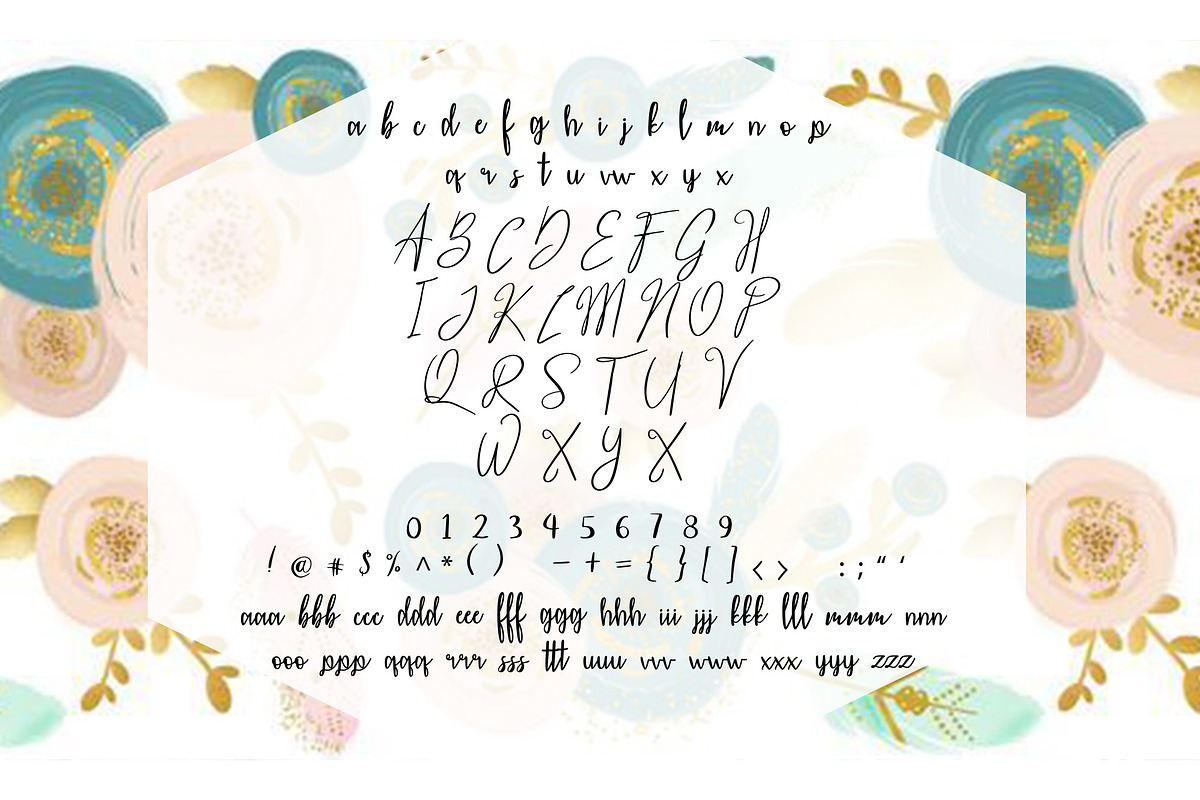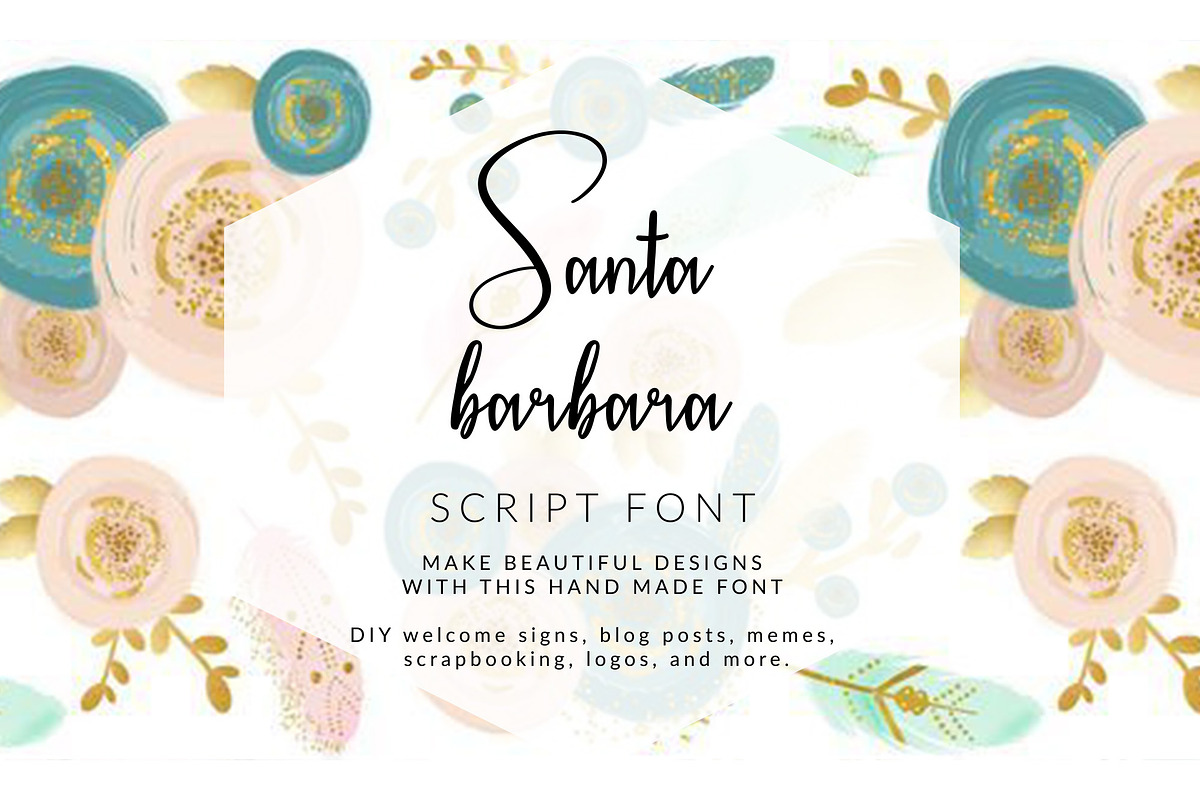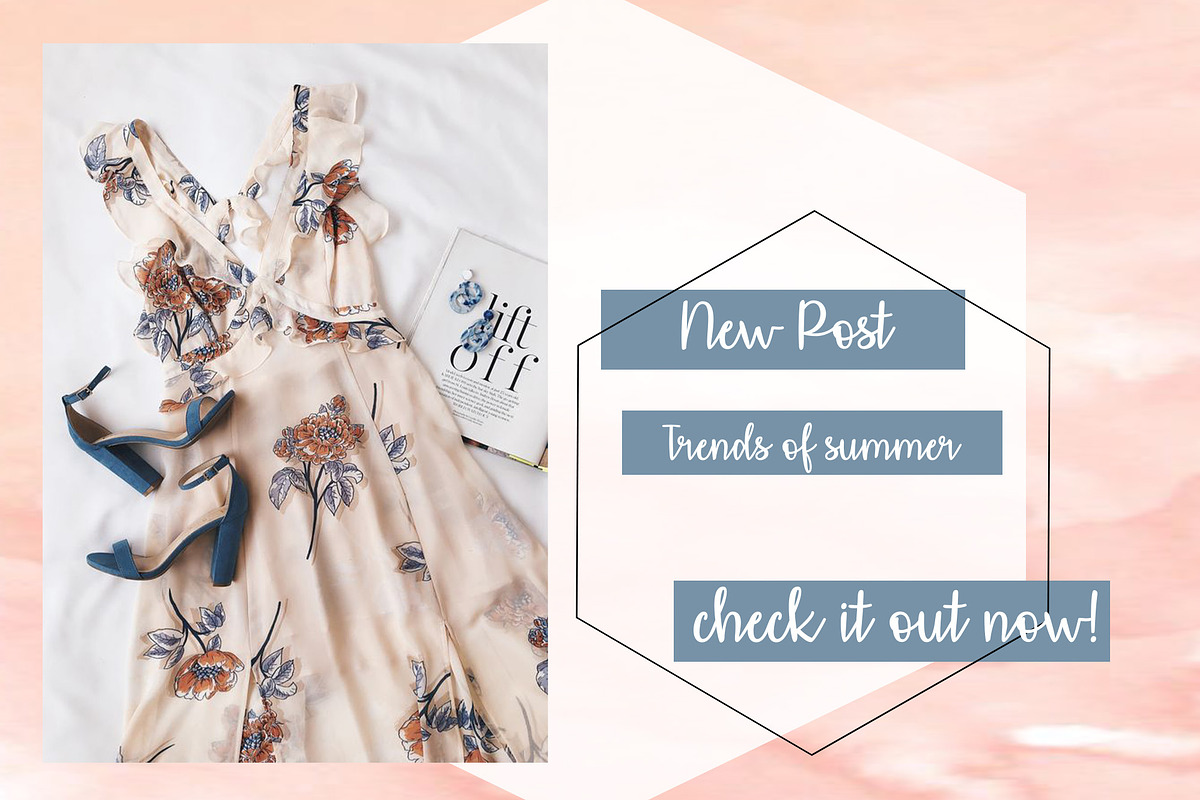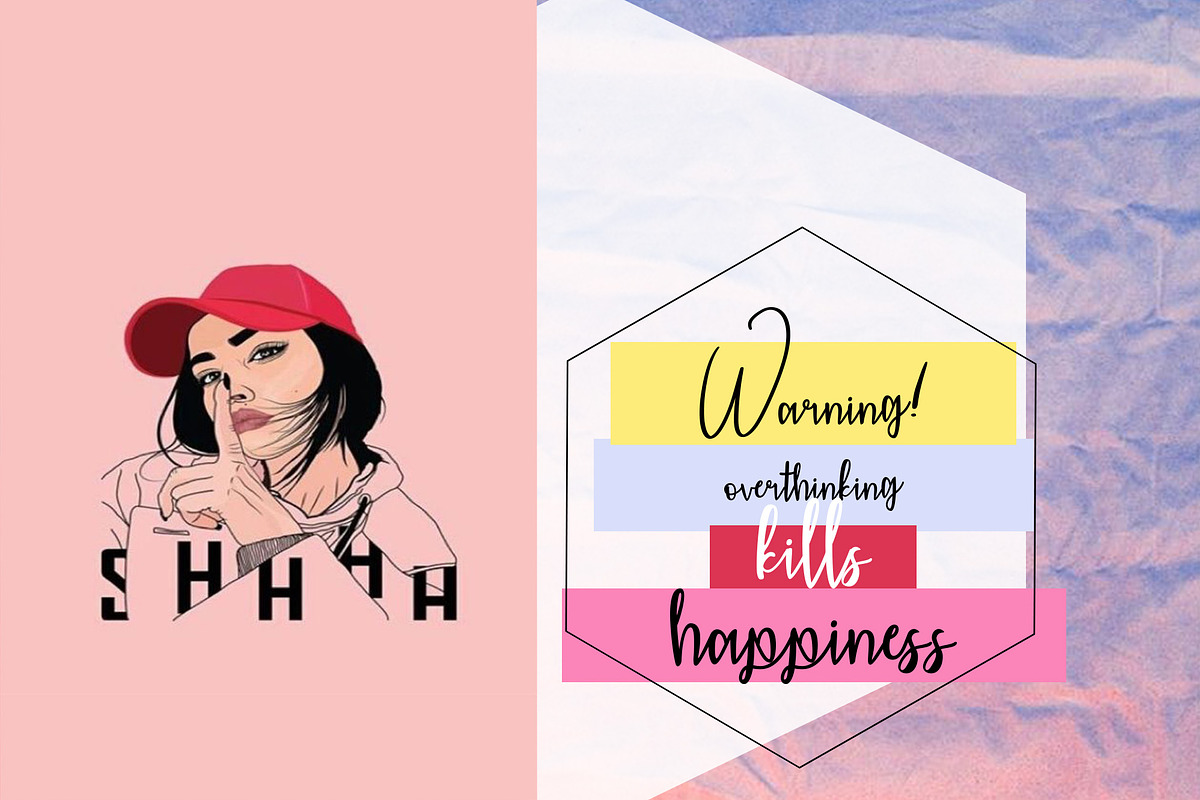
SANTA BARBARA SCRIPT FONT
Santa Barbara Font is the project I made in a long time of thinking about what I want to pass through it. I wanted to give a touch of femininity and flexibility to be used for any kind of projects. Both uppercase and lower case letters have been thought of separately to create a fantasy game together. I hope it came out and it will be used with love by those who will buy it. :)
The font contains standard characters, lowercase, uppercase, numbers and punctuation.